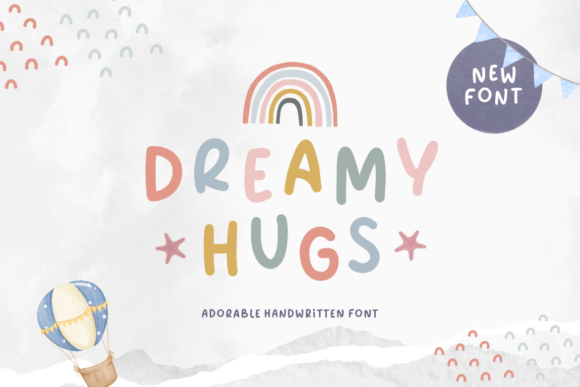
Dreamy Hugs Font: The Ultimate Guide to Captivating Your Audience with Whimsy and Charm
In the world of typography, few fonts manage to evoke the same level of warmth and charm as Dreamy Hugs. This delightful handwritten font has captured the hearts of designers and crafty enthusiasts alike, and for good reason. With its gentle, rounded strokes and whimsically crafted characters, Dreamy Hugs exudes a pleasant aura of joyfulness that’s perfect for adding a touch of personal appeal to your creations.
What Makes Dreamy Hugs Font So Special?
Dreamy Hugs is characterized by its unique blend of playfulness and sophistication. The font’s gentle, rounded strokes and whimsically crafted characters give it a distinctly cheerful vibe, making it perfect for designs that require a touch of personality. Whether you’re working on a children’s branding project, crafting heart-warming greeting cards, or compiling inspirational quotes, Dreamy Hugs is an excellent choice.
- Gentle, rounded strokes: Dreamy Hugs features soft, rounded strokes that give it a warm and inviting feel.
- Whimsically crafted characters: Each character in the Dreamy Hugs font is carefully crafted to evoke a sense of playfulness and whimsy.
- Perfect for designs that require personality: Whether you’re working on a children’s project or creating inspirational quotes, Dreamy Hugs is the perfect font to add a touch of personality to your designs.
10 Use Cases for Dreamy Hugs Font
Dreamy Hugs is a versatile font that can be used in a variety of design projects. Here are 10 use cases to get you started:
- Children’s branding content: Dreamy Hugs is perfect for creating fun and engaging branding content for kids.
- Heart-warming greeting cards: Add a touch of warmth and personality to your greeting cards with Dreamy Hugs.
- Inspirational quotes: Use Dreamy Hugs to create inspiring and uplifting quotes that will motivate and delight your audience.
- Baby product line-ups: Dreamy Hugs is a great choice for designing baby product line-ups that require a touch of whimsy and charm.
- Social media graphics: Add a touch of personality to your social media graphics with Dreamy Hugs.
- Blog posts: Use Dreamy Hugs to create engaging and readable blog posts that will delight your audience.
- E-books and guides: Dreamy Hugs is perfect for creating visually appealing e-books and guides.
- Posters and flyers: Use Dreamy Hugs to create eye-catching posters and flyers that will grab attention.
- Wedding and event invitations: Add a touch of whimsy and romance to your wedding and event invitations with Dreamy Hugs.
- Packaging design: Dreamy Hugs can be used in packaging design to add a touch of personality and whimsy to your products.
Design Tips for Using Dreamy Hugs Font
Here are some design tips to help you get the most out of Dreamy Hugs:
- Pair with contrasting fonts: Pair Dreamy Hugs with contrasting fonts to create visual interest and hierarchy.
- Use varied font sizes: Use varied font sizes to create a visually appealing design that guides the reader’s eye.
- Add texture and patterns: Add texture and patterns to your design to create depth and visual interest.
- Experiment with colors: Experiment with different colors to find the perfect combination that complements your design.
Inspiration: How to Use Dreamy Hugs to Create Stunning Designs
Here are some inspiring examples of how you can use Dreamy Hugs to create stunning designs:
Use Dreamy Hugs to create a fun and engaging children’s book cover.
Add a touch of whimsy and charm to your wedding invitation with Dreamy Hugs.
Use Dreamy Hugs to create a visually appealing social media graphic that will delight your audience.
In conclusion, Dreamy Hugs font is a delightful handwritten font that can add a touch of warmth and charm to your designs. With its gentle, rounded strokes and whimsically crafted characters, Dreamy Hugs is perfect for designs that require a touch of personality and whimsy. Whether you’re working on a children’s branding project, crafting heart-warming greeting cards, or compiling inspirational quotes, Dreamy Hugs is an excellent choice.